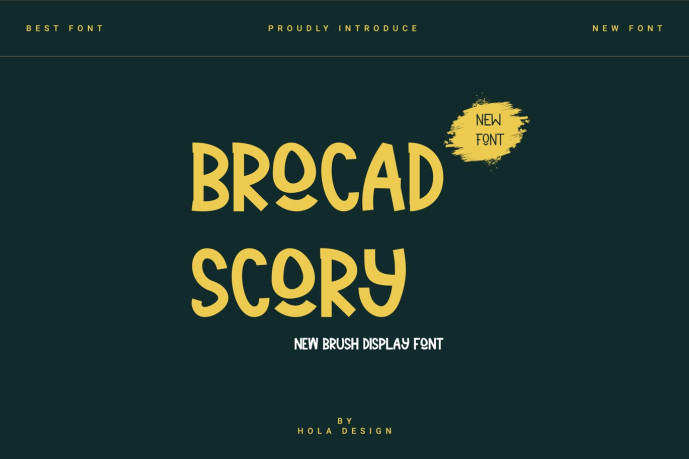
Brocard Scory Font
Brocard Scory Font Ready to be used for your creations, such as labeling, film scenes, posters, film titles, concerts, album covers, logos and much more.